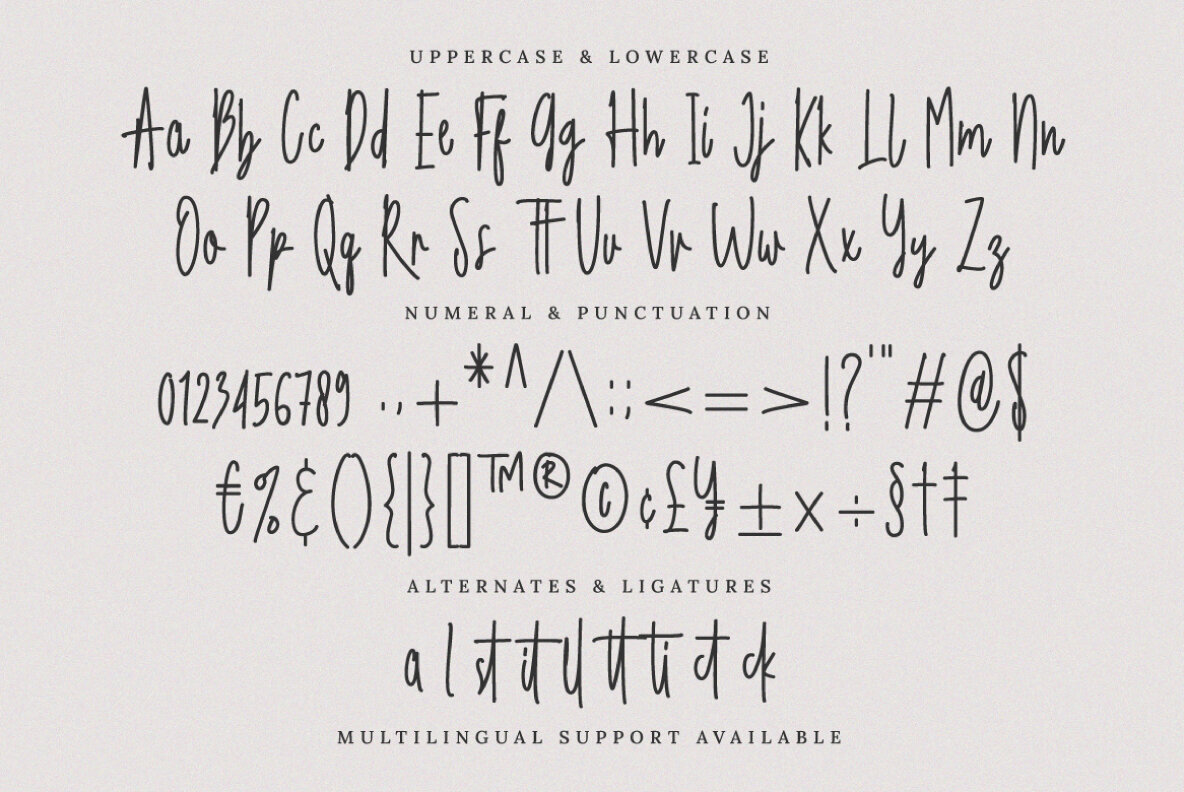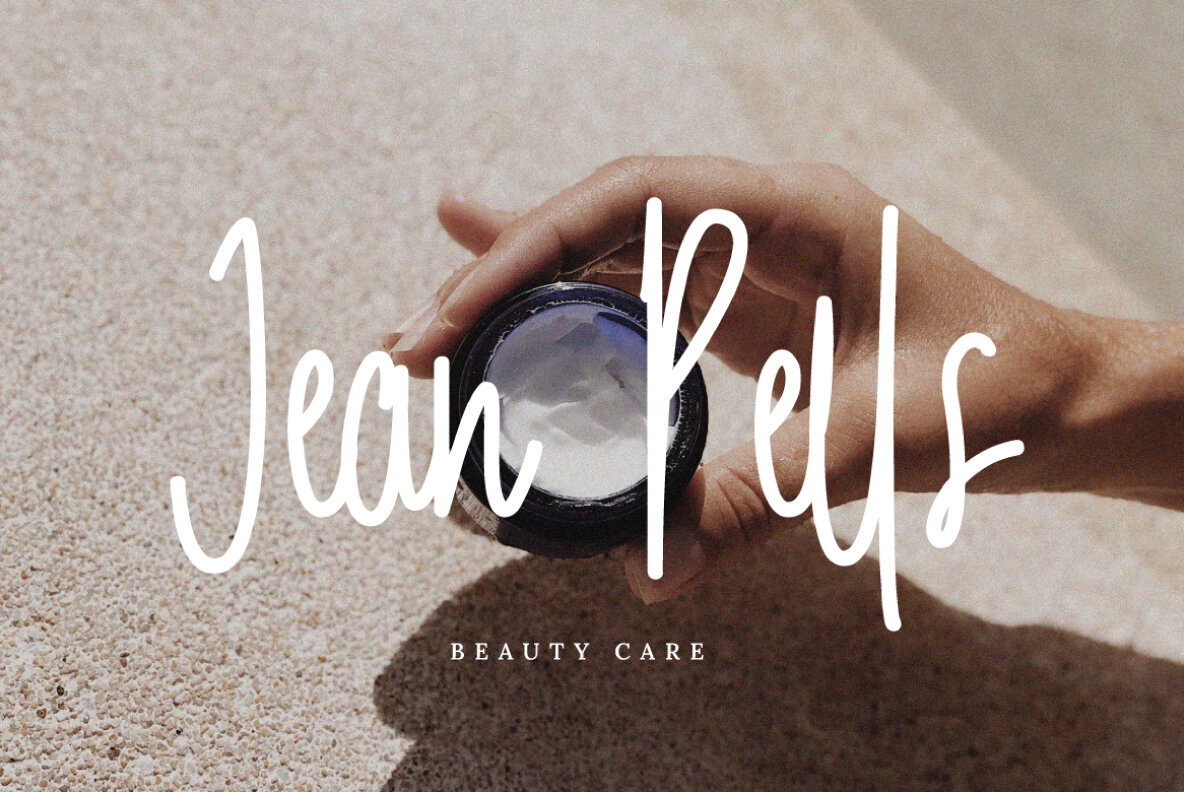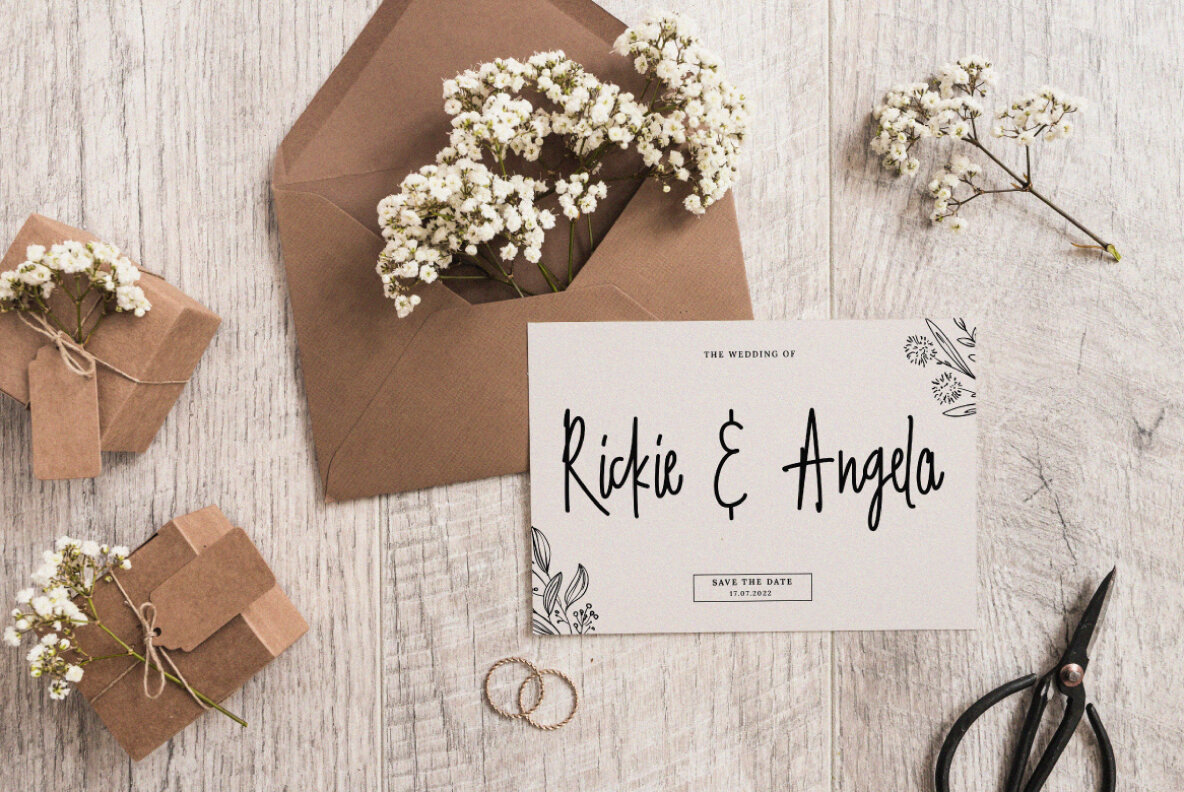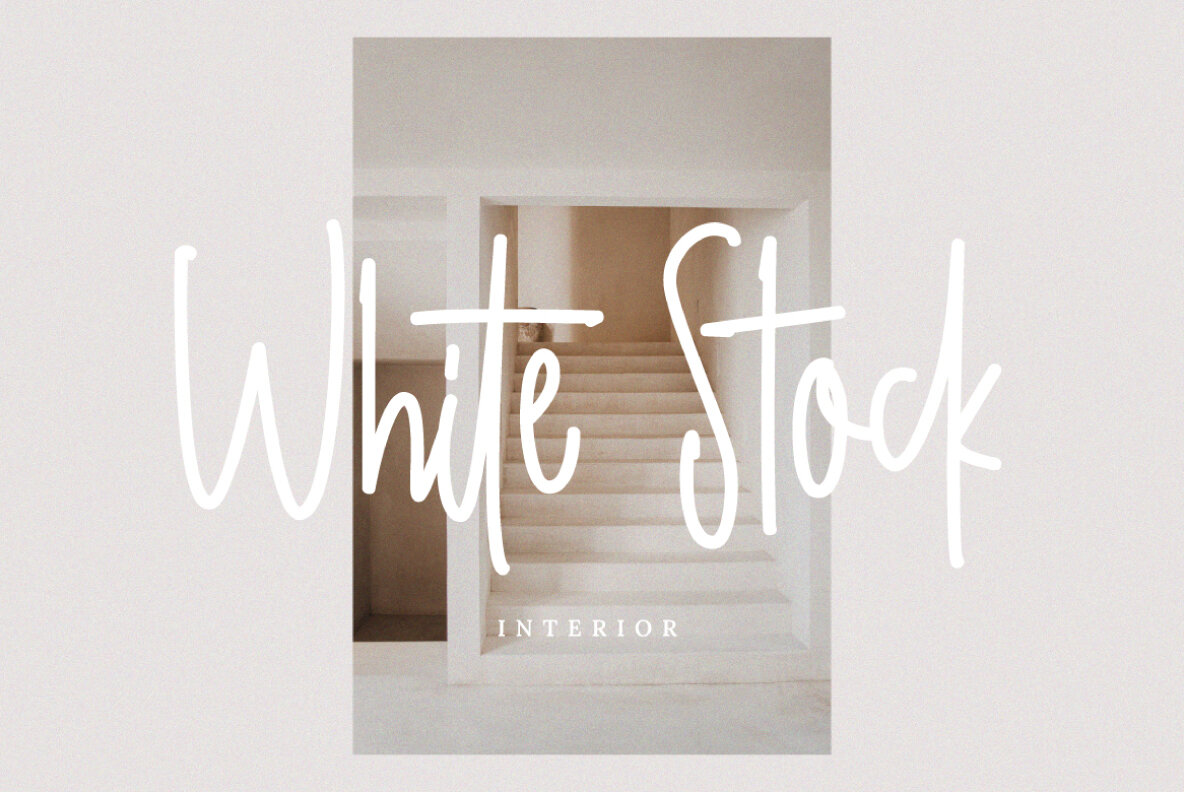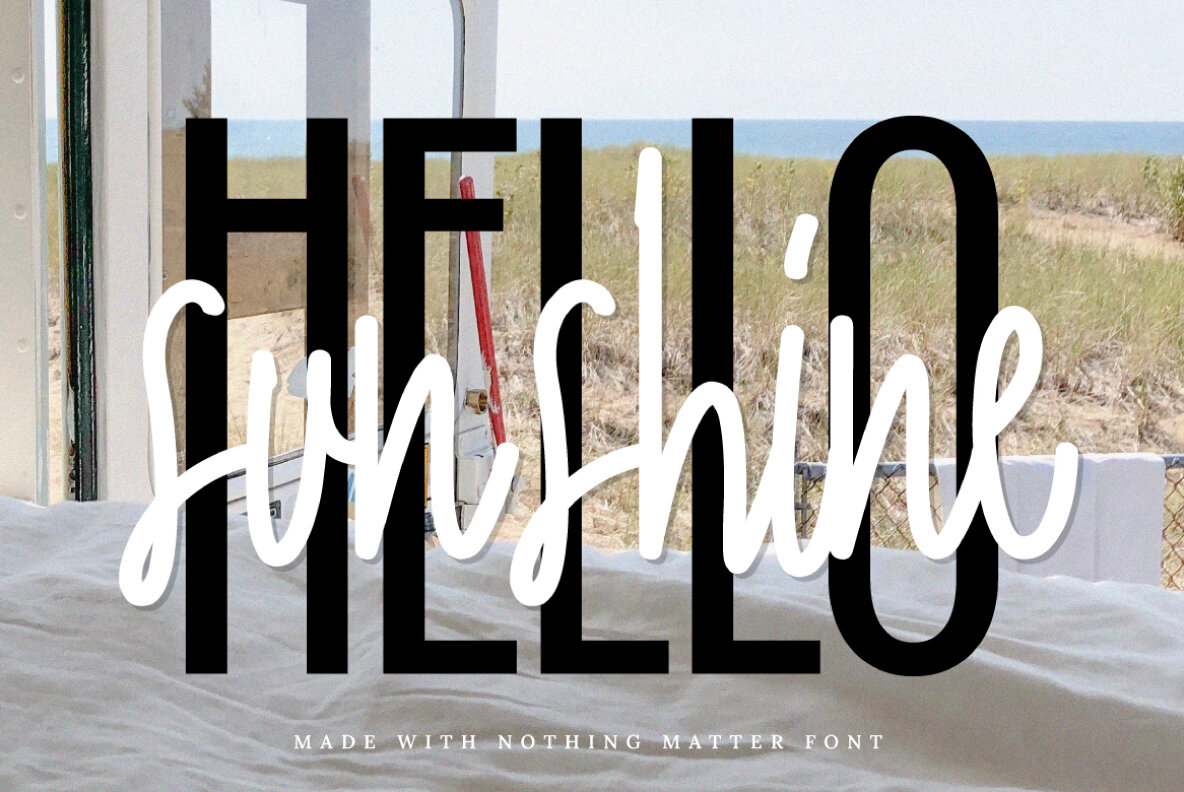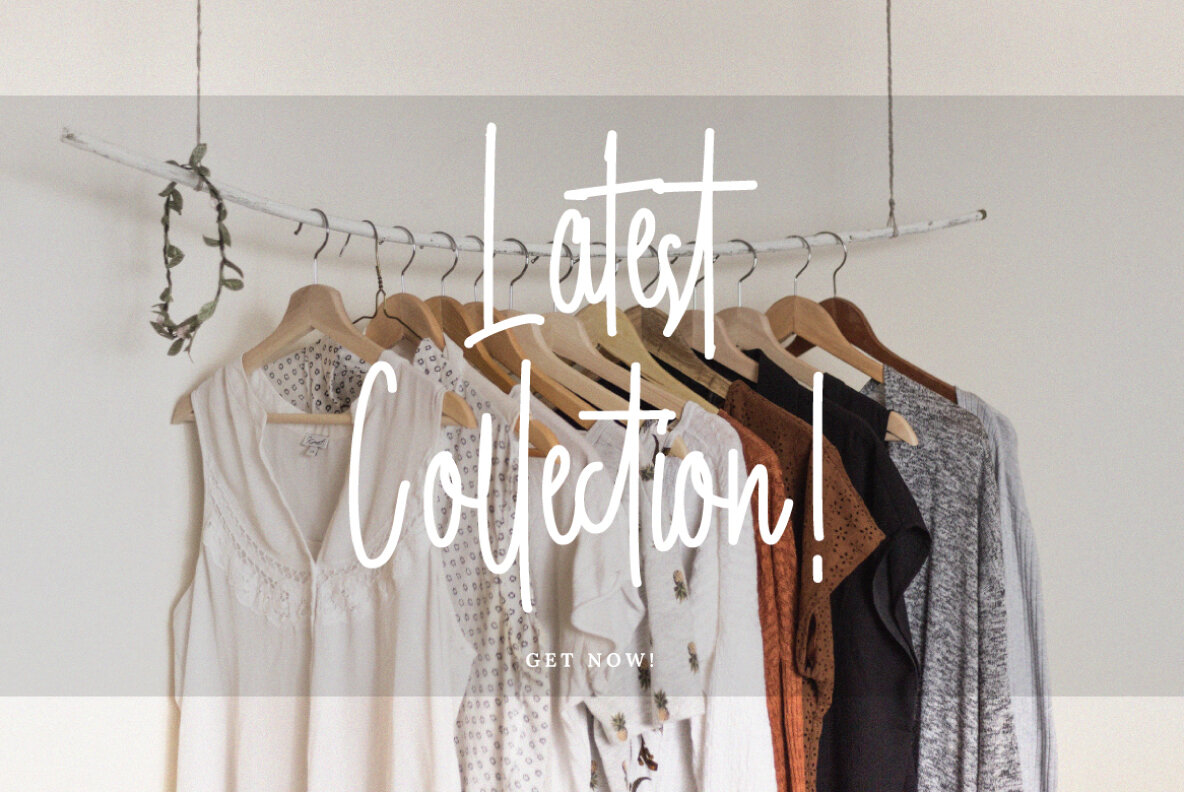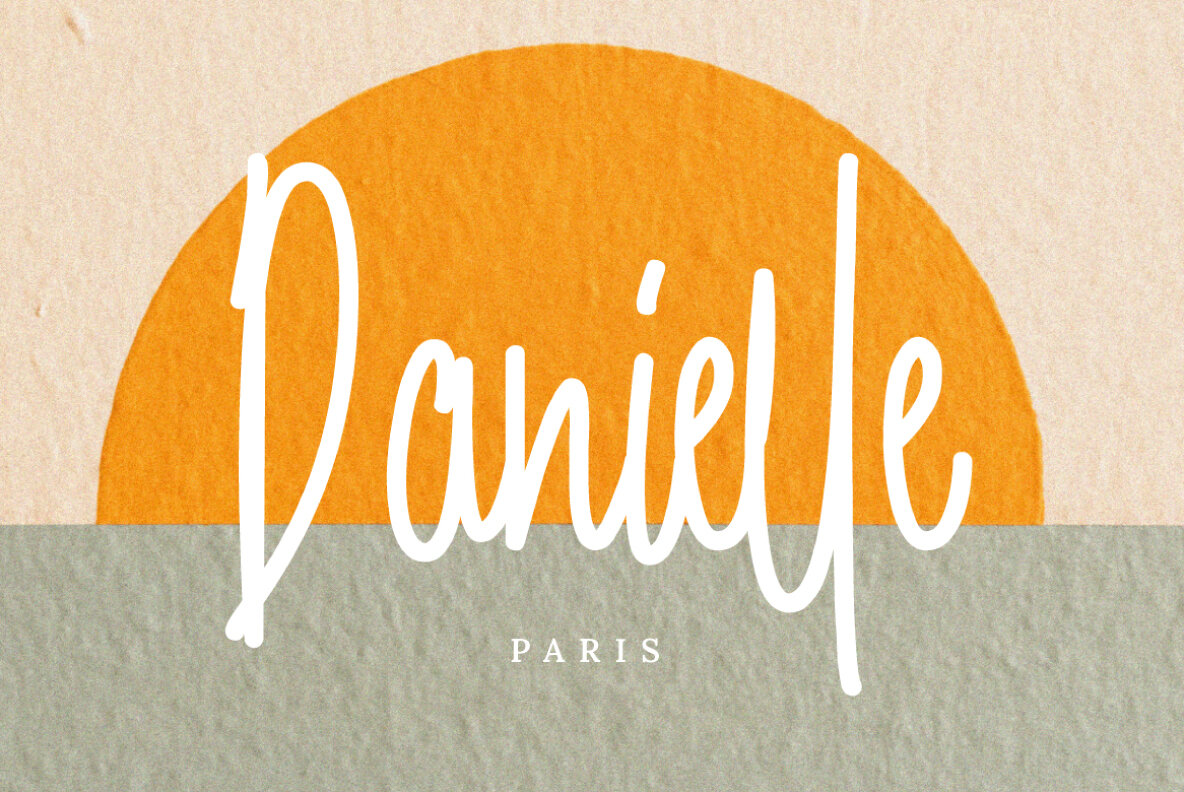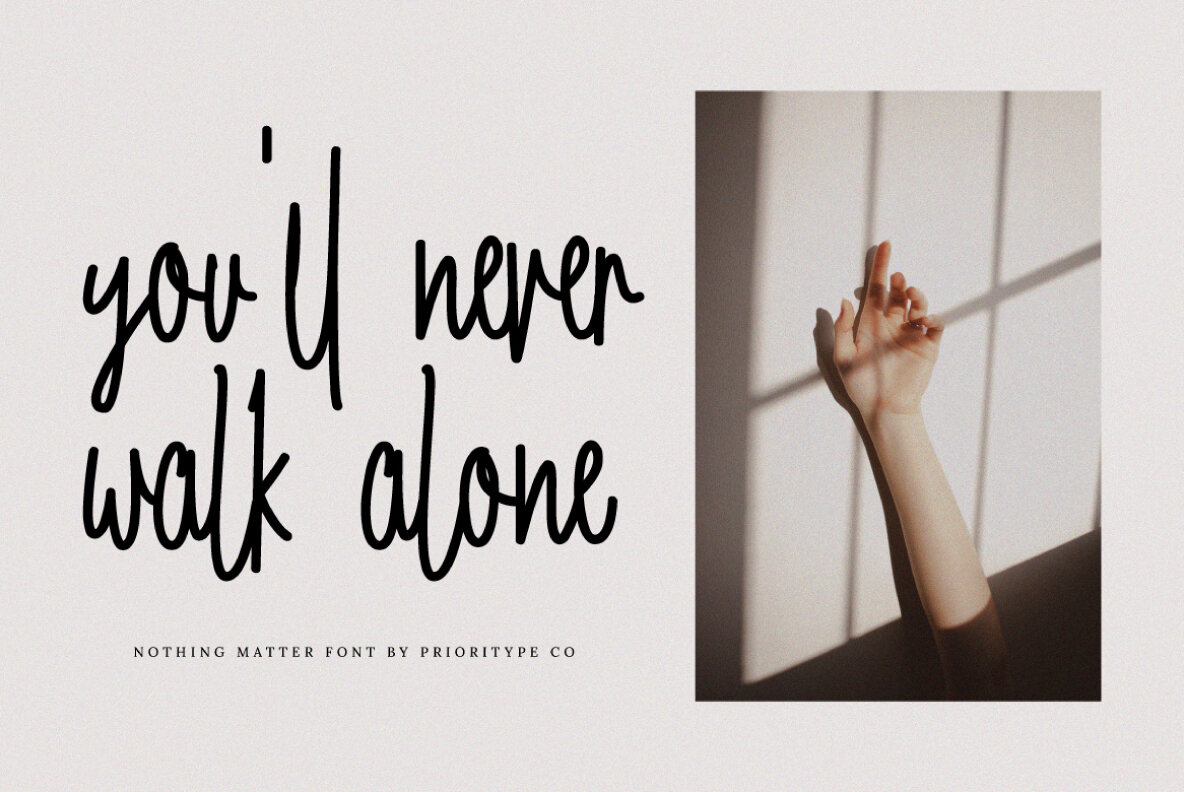
Nothing Matter Font
Nothing Matter
Nothing Matter is a sophisticated handwritten monoline font that brings a touch of style to your designs. This versatile typeface is enhanced with ligatures and alternate characters to provide a more authentic and natural look. It's the perfect choice for adding a personal and elegant touch to wedding invitations, inspiring quotes, logos, and branding projects.
This font comes with a comprehensive set of features including uppercase and lowercase letters, numerals, punctuation marks, multilingual support, alternates, ligatures, and PUA encoding. These features ensure you have the creative flexibility needed to create truly unique designs that stand out.